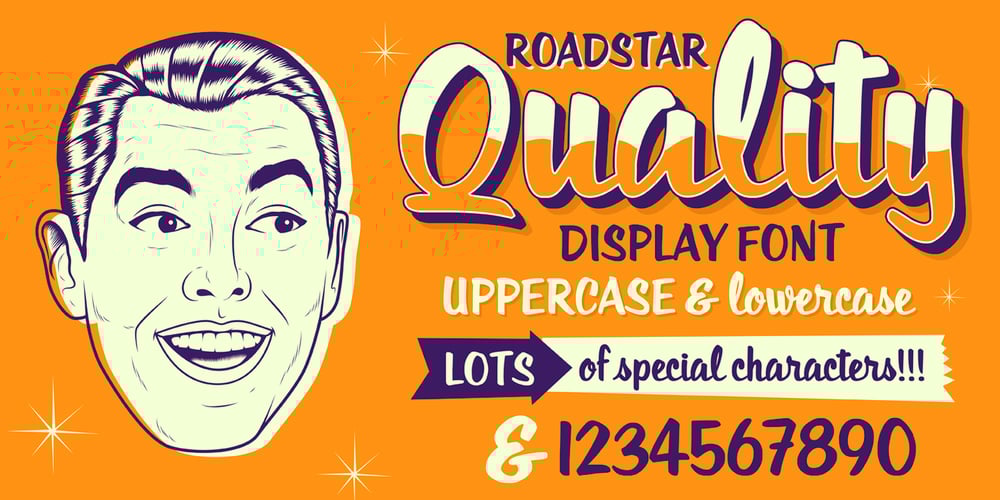
Roadstar Font Family was designed by Coert De Decker and published by Kustomtype. Roadstar contains 2 styles and family package options. Roadstar is a script designed in the style of the classic American advertising font from the 1940’s-1950’s. Roadstar is a retro brush-style script designed for logotype, packaging, posters, T-shirts, signage & design projects with a retro & vintage feel. Roadstar comes with two styles that both contain all upper and lower case characters, punctuation, numerals and mathematical operators, as well as all accented characters.